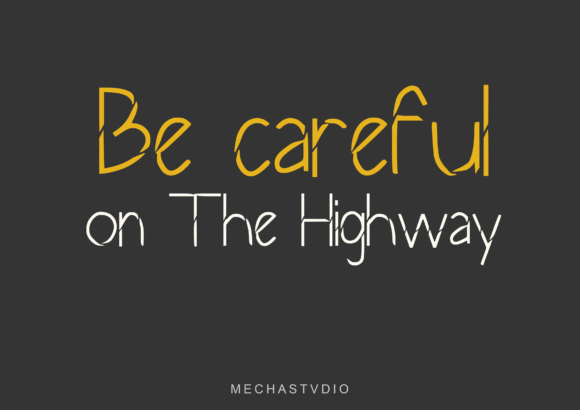
Introduction to Pattah Font
Pattah is a cool, simple, and unique display font perfect for logotype, branding, stationery, poster designs, social media posts, and more.
Key Features of Pattah Font